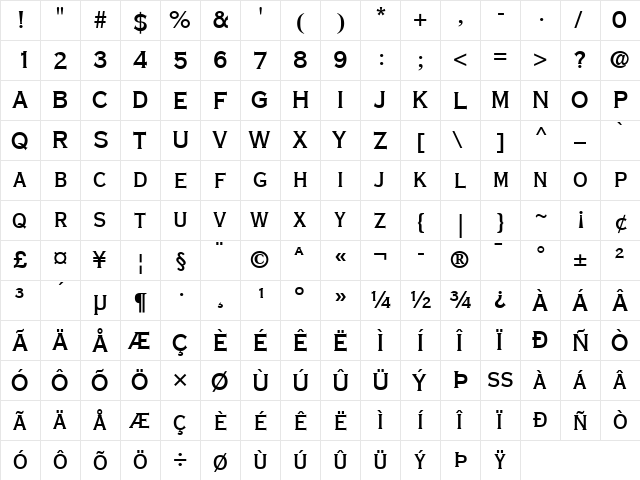
Copperplate LT 30ab Regular
Design Context for Copperplate LT 30ab Typeface
Copperplate LT 30ab takes a measured approach to typography — its balanced proportions and neutral character make it a reliable workhorse for both digital and print work. Its slender proportions lend an understated elegance to any composition.
Pro Tip: Use Copperplate LT 30ab in both headline and body roles to test its range before committing to a single application.